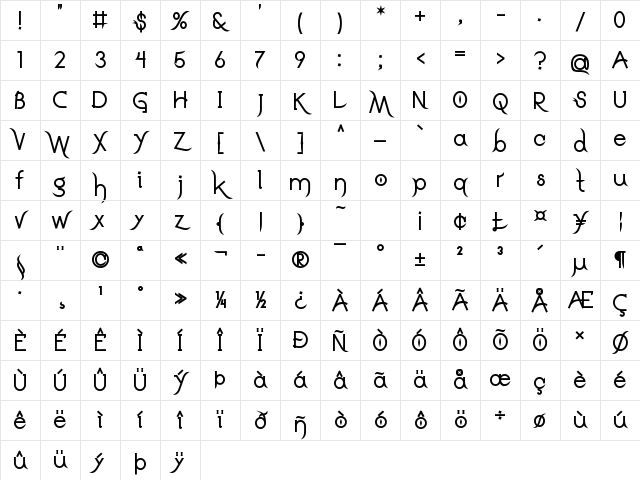
Drakoheart Leiend Bold Free Font
Drakoheart Leiend Bold
Designer: Yun Gonz￿z
Drakoheart Leiend Family
Design Context for Drakoheart Leiend
Drakoheart Leiend is a composed and adaptable typeface that performs quietly and consistently across a wide range of design contexts. Its bold stroke weight gives it real presence on the page.